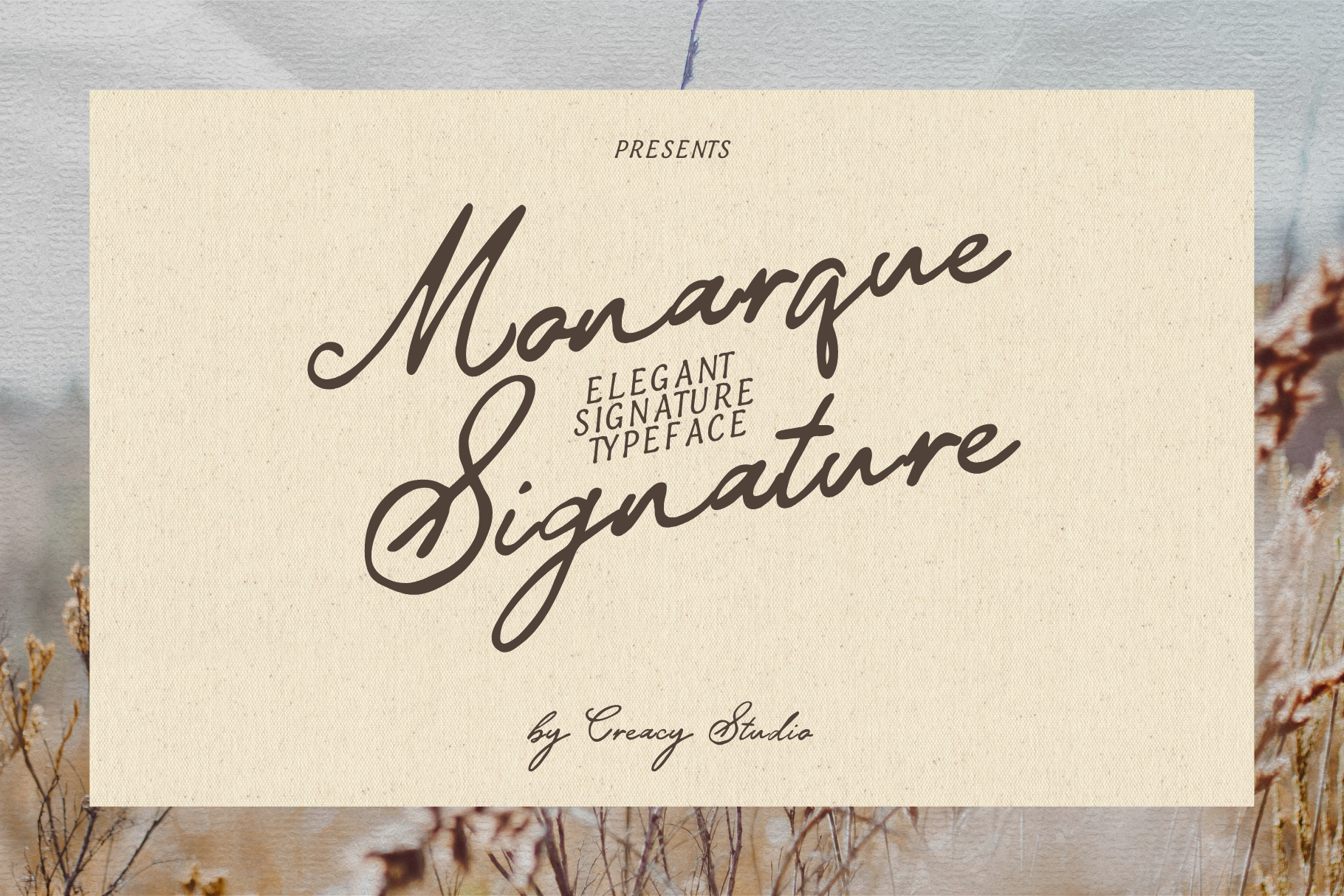
Monarque Signature Script Font
Monarque Signature – Elegant Handwritten Script
Monarque Signature is a refined handwritten script font crafted to capture the essence of timeless elegance and modern sophistication. Inspired by classic European lettering and signature-style calligraphy, this typeface flows with confidence—balancing delicate strokes with a strong visual presence.
Designed with soft elongated proportions and natural rhythm, Monarque Signature brings a luxurious, personal touch to any creative project.
- Elegant, flowing signature style
- Smooth handwritten rhythm with natural connections
- Refined curves with confident stroke endings
- Perfect balance between classic and modern aesthetics
- Designed to feel personal, expressive, and premium
✦ Font Features
- Numerals & punctuation
- Ligatures for natural flow
- Smooth baseline consistency
- Clean and well-balanced spacing
✦ Style Direction
Monarque Signature is built for designers who want:
- a luxury feel without stiffness
- a signature look that feels authentic
- a timeless script with modern usability
✦ Creative Insight
This font works strongest when:
- paired with minimal serif or clean sans-serif
- used in large scale for impact
- combined with soft textures or editorial layouts